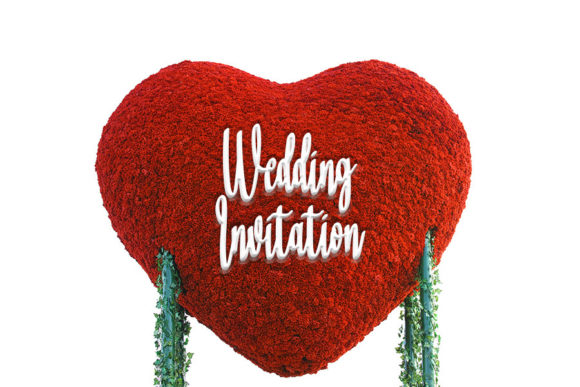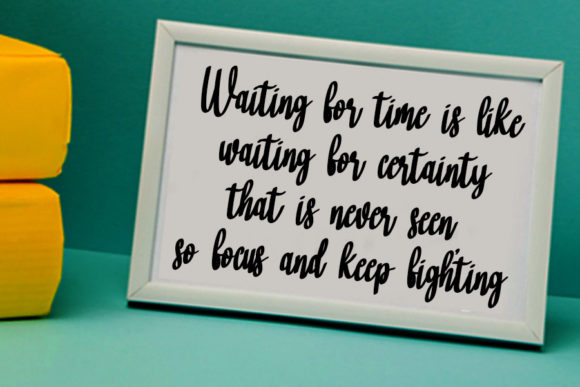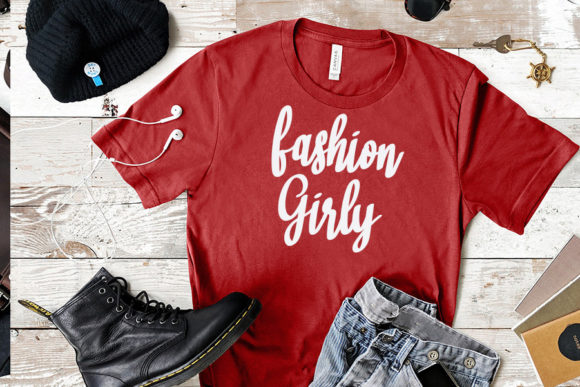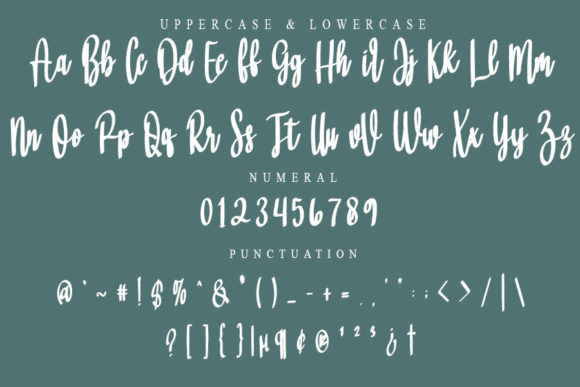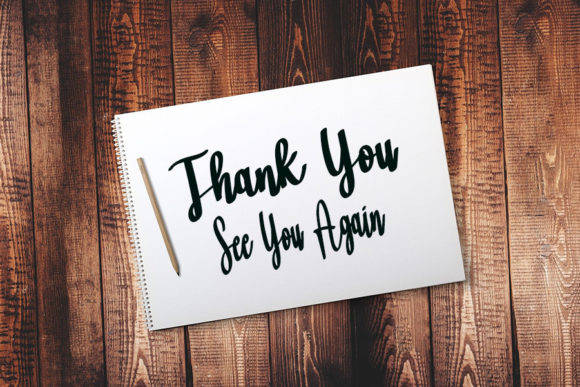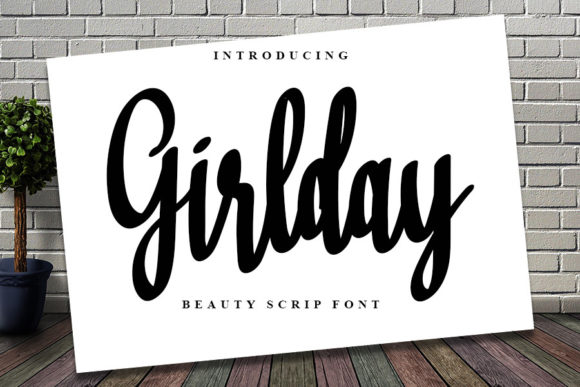
Girlday Font: Elevate Your Designs with a Stylish and Bold Handwritten Touch
Are you tired of using the same old fonts in your design projects? Do you want to add a touch of personality and style to your headlines and logotypes? Look no further than the Girlday Font, a gorgeous and bold handwritten font that’s sure to take your designs to the next level. In this article, we’ll dive into the world of Girlday Font, exploring its features, benefits, and uses, as well as provide tips and inspiration for designers and crafters.
What is Girlday Font?
Girlday Font is a unique and stylish handwritten font, carefully crafted to add a touch of elegance and sophistication to your design projects. With its bold and expressive letters, Girlday Font is perfect for creating eye-catching headlines, logotypes, and titles that demand attention. Whether you’re a designer, crafter, or DIY enthusiast, Girlday Font is an excellent choice for anyone looking to add a personal touch to their work.
Key Features of Girlday Font
- Bold and Expressive Letters: Girlday Font features bold and expressive letters that are sure to make a statement in your designs.
- Handwritten Style: With its handwritten style, Girlday Font adds a touch of personality and warmth to your designs.
- Easy to Read: Despite its bold and expressive nature, Girlday Font is easy to read, making it perfect for use in headlines, titles, and logotypes.
- Versatile: Girlday Font is a versatile font that can be used in a variety of design projects, from branding and advertising to crafting and DIY.
Benefits of Using Girlday Font
So, why should you choose Girlday Font for your design projects? Here are just a few benefits of using this gorgeous font:
- Adds Personality to Your Designs: With its unique and stylish handwritten style, Girlday Font adds a touch of personality to your designs, setting them apart from the crowd.
- Creates a Lasting Impression: The bold and expressive letters of Girlday Font are sure to create a lasting impression on your audience, making your designs more memorable and engaging.
Uses of Girlday Font
Girlday Font is a versatile font that can be used in a variety of design projects, including:
- Branding and Advertising: Use Girlday Font to create eye-catching logos, headlines, and titles that showcase your brand’s personality and style.
- Crafting and DIY: Add a personal touch to your crafting and DIY projects with Girlday Font, perfect for making signs, cards, and other handmade items.
- Graphic Design: Use Girlday Font in your graphic design projects, such as brochures, flyers, and posters, to add a touch of style and sophistication.
Tips for Using Girlday Font
Here are a few tips for using Girlday Font in your design projects:
- Experiment with Different Sizes and Colors: Try out different sizes and colors of Girlday Font to find the perfect combination for your design.
- Pair with Other Fonts: Pair Girlday Font with other fonts to create a unique and stylish contrast in your designs.
- Use in Combination with Images: Use Girlday Font in combination with images to create a visually appealing and engaging design.
Inspiration and Resources
- Design Communities: Join design communities, such as Behance and Dribbble, to connect with other designers and get inspiration for your projects.
- Font Pairing Tools: Use font pairing tools, such as Font Pair and Google Fonts, to find the perfect font combinations for your designs.
- Design Blogs: Follow design blogs, such as Design Milk and The Design Cubicle, to stay up-to-date on the latest design trends and inspiration.
In conclusion, Girlday Font is a gorgeous and bold handwritten font that’s perfect for adding a stylish touch to your design projects. With its unique and expressive letters, Girlday Font is sure to make a lasting impression on your audience. Whether you’re a designer, crafter, or DIY enthusiast, Girlday Font is an excellent choice for anyone looking to add a personal touch to their work.